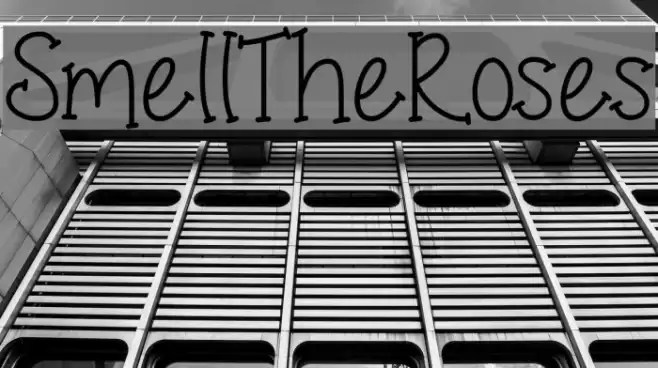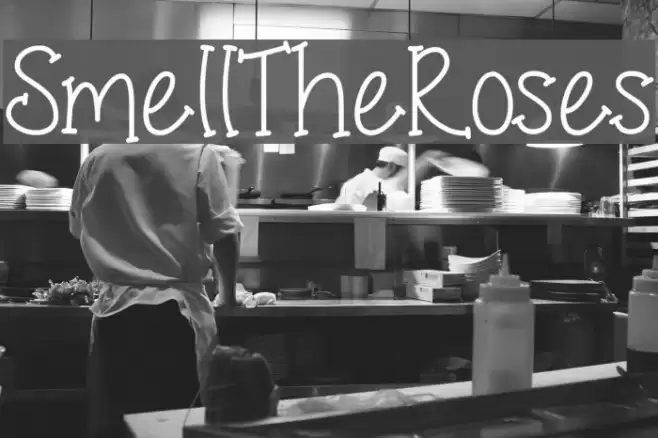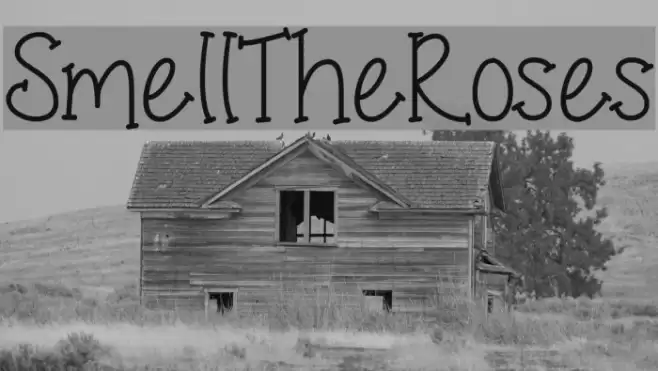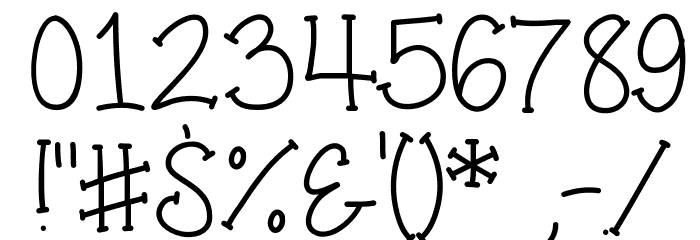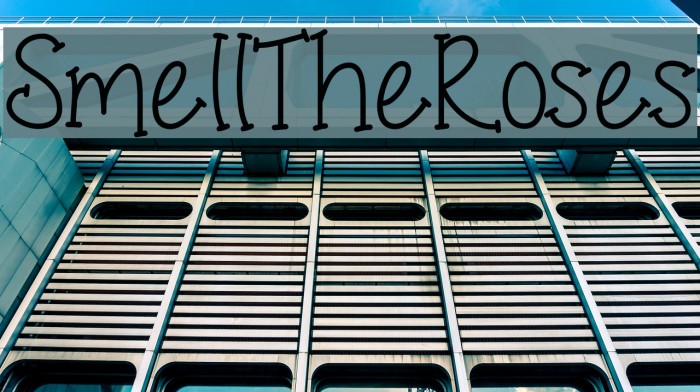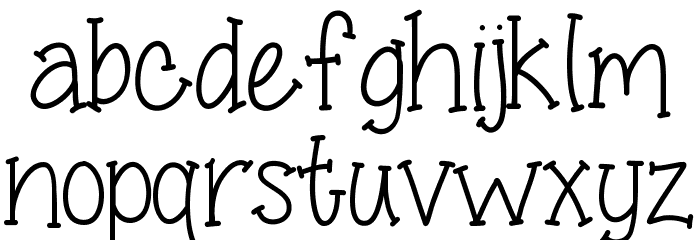
SmellTheRoses Font
SmellTheRoses Description
This playful and whimsical font features tall, narrow letters with a hand-drawn appearance. The characters have a consistent stroke width, giving them a clean and uniform look. The uppercase letters are slightly taller than the lowercase, adding a sense of hierarchy and structure. The font includes a full set of numerals and a variety of special characters, making it versatile for different uses. Its informal style is reminiscent of handwriting, with slight curves and loops that add a touch of personality and charm. The overall design is approachable and friendly, making it suitable for creative and casual projects.
A playful, hand-drawn font with tall, narrow letters and a whimsical style from Uncategorized fonts.
- Proposed Projects: Ideal for children's books, greeting cards, playful branding, and creative posters.
- Overall Style: Playful